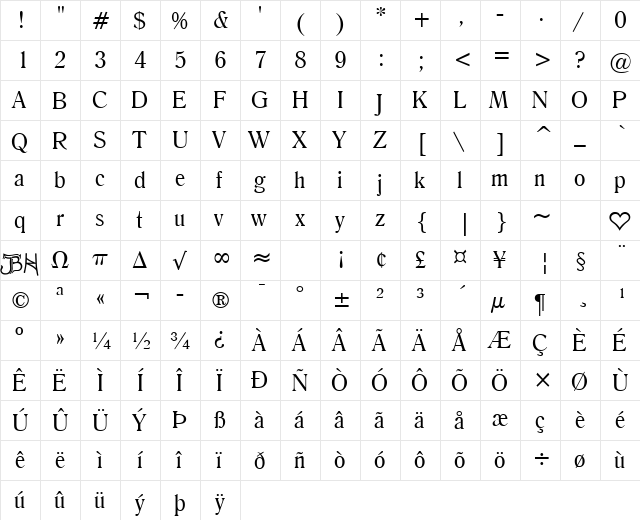
Salernomi J Roman
Design Context for Salernomi J Typeface
Salernomi J offers clean, dependable letterforms without strong stylistic allegiance, making it a practical choice for designers who need flexibility.
Pro Tip: Use Salernomi J in both headline and body roles to test its range before committing to a single application.